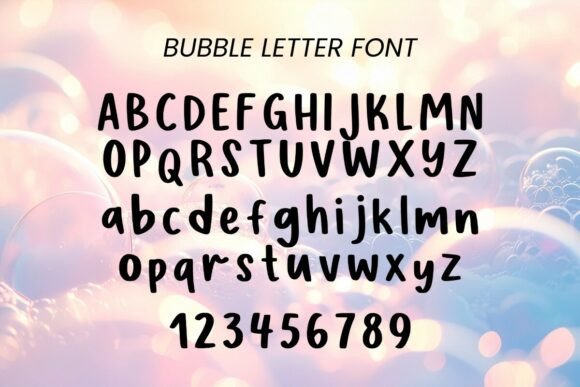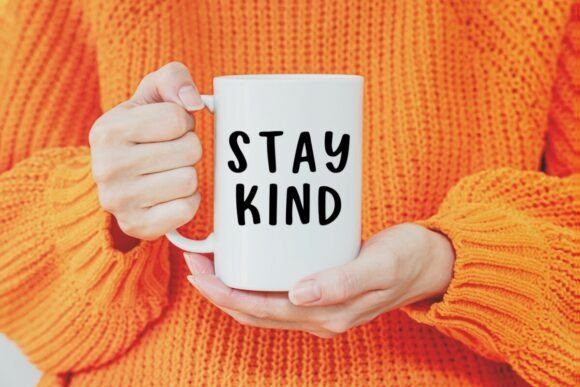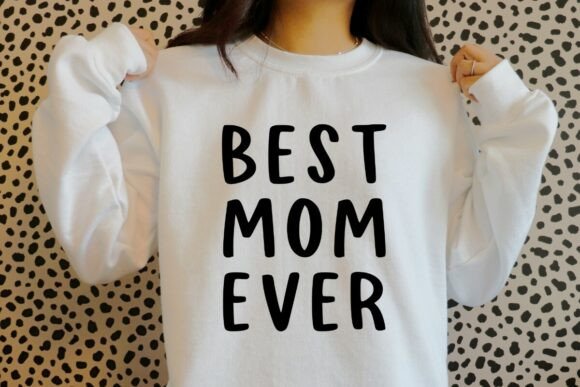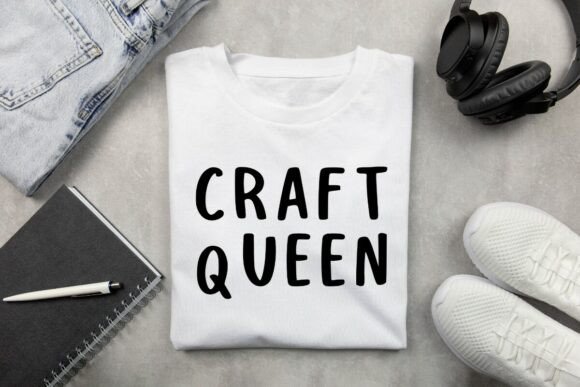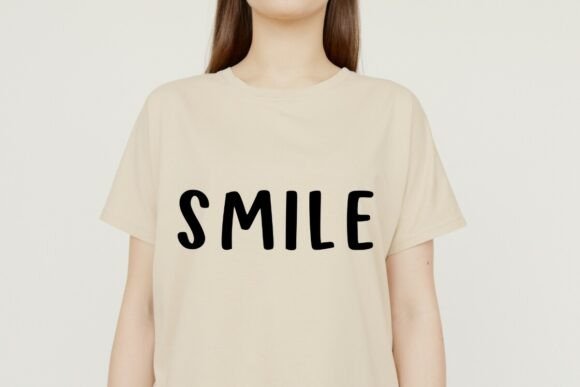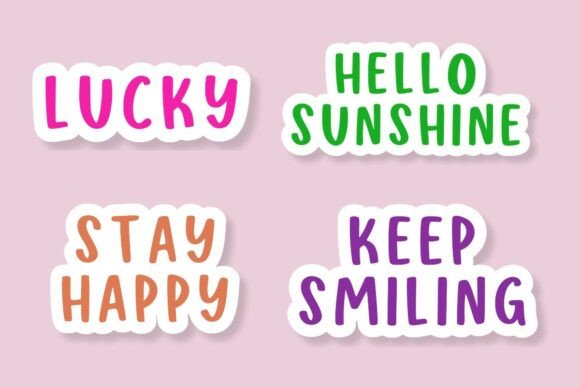
Bubble Blush Font: Add a Touch of Whimsy to Your Designs
Are you looking for a font that can add a dash of fun and playfulness to your designs? Look no further than the Bubble Blush font! This delightful, hand-written display font is perfect for designers and crafters who want to infuse their work with charm, softness, and creativity. With its bold, bubbly letter shapes and friendly style, Bubble Blush is sure to capture the hearts of anyone who loves cute and expressive typography.
The Characteristics of Bubble Blush Font
Bubble Blush is a rounded, handwritten display font that boasts soft, pillowy shapes and a “bubbly” personality. Its unique characteristics make it an ideal choice for a variety of design projects, including food packaging, children’s toys, and bright promotional banners. The font’s bold, bubbly letter shapes are sure to grab attention and add a pop of sweetness to any design.
The Bubble Blush font is incredibly versatile and can be used in a wide range of design projects. Its playful and approachable nature makes it perfect for:
- Food packaging: Add a touch of whimsy to your food packaging with Bubble Blush. Its soft, rounded shapes are sure to appeal to customers and make your products stand out on store shelves.
- Children’s toys: The Bubble Blush font is perfect for designing fun and playful materials for kids. Its bright and cheerful personality is sure to delight children and parents alike.
- Promotional banners: Add a pop of color and fun to your promotional banners with Bubble Blush. Its bold, bubbly letter shapes are sure to grab attention and draw in customers.
- Social media content: Use Bubble Blush to create engaging social media content that is sure to capture the hearts of your followers.
- Sticker designs: The Bubble Blush font is perfect for designing fun and playful stickers that are sure to delight kids and adults alike.
- Classroom materials: Add a touch of fun and playfulness to your classroom materials with Bubble Blush. Its approachable and lighthearted nature makes it perfect for educational designs.
Pairing Suggestions
The Bubble Blush font pairs seamlessly with simple, geometric sans-serifs to keep the focus on its charming curves. This pairing creates a beautiful contrast that is sure to make your designs stand out. Some popular pairing suggestions include:
- Open Sans: This clean and modern sans-serif font pairs perfectly with Bubble Blush, creating a beautiful contrast that is sure to make your designs pop.
- Lato: This sleek and modern sans-serif font is another great pairing option for Bubble Blush. Its clean lines and geometric shapes create a beautiful contrast with the font’s soft, rounded shapes.
- Merriweather: This classic serif font pairs surprisingly well with Bubble Blush, creating a beautiful contrast that is sure to add a touch of elegance to your designs.
Why Choose Bubble Blush Font?
So why choose Bubble Blush font for your next design project? Here are just a few reasons:
- Unique and playful personality: The Bubble Blush font has a unique and playful personality that is sure to capture the hearts of anyone who loves cute and expressive typography.
- Approachable and lighthearted: The font’s approachable and lighthearted nature makes it perfect for brands that want to feel accessible and fun.
- Versatile: The Bubble Blush font is incredibly versatile and can be used in a wide range of design projects.
- Easy to read: Despite its playful nature, the Bubble Blush font is easy to read and can be used in a variety of contexts.
In conclusion, the Bubble Blush font is a fun and playful, rounded, hand-written display font that is perfect for designers and crafters who want to add a touch of whimsy to their designs. Its unique characteristics, versatility, and approachable nature make it an ideal choice for a wide range of design projects. Whether you’re designing for a brand or just want to add a pop of fun to your personal projects, the Bubble Blush font is sure to delight.